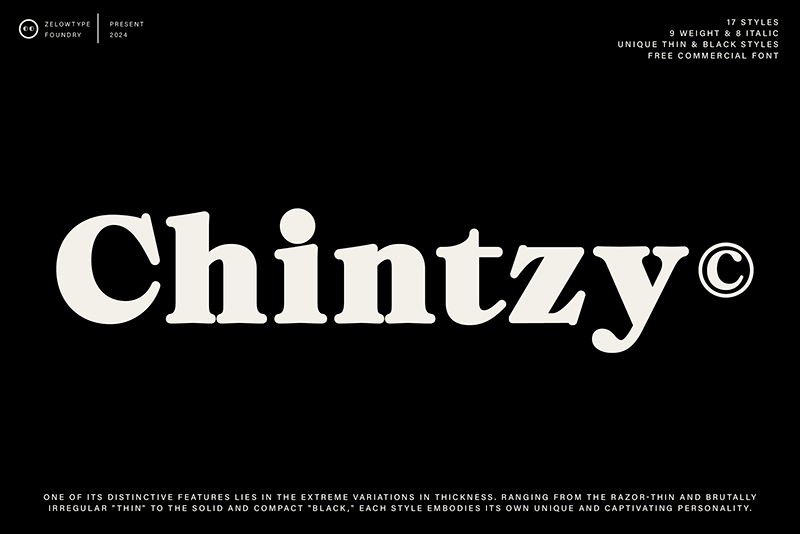
"ZT Chintzy" pays homage to the expressive, soft, and rounded serif typography of the 1960s and 1970s era. Its gentle and captivating serifs evoke warmth and nostalgia reminiscent of that era's typefaces. Features of the "ZT Chintzy" font include: - 9 Plain Weights & 8 Italic Weights - Expanded Latin Character Set - Standard Ligatures + Discretion - Stylistic Alternatives - Punctuation & Symbols - Over 487 Unique Characters - Elegant Serif Style - Free to Use Note of the author To download the full font family please visit our website: https://www.behance.net/gallery/192978375/ZT-CHINTZY-Free-Font-17-Styles Donation are very appreciated. Paypal account for donation : https://paypal.me/khaiuns CONTACT US: have a question?: selowtype@gmail.com |